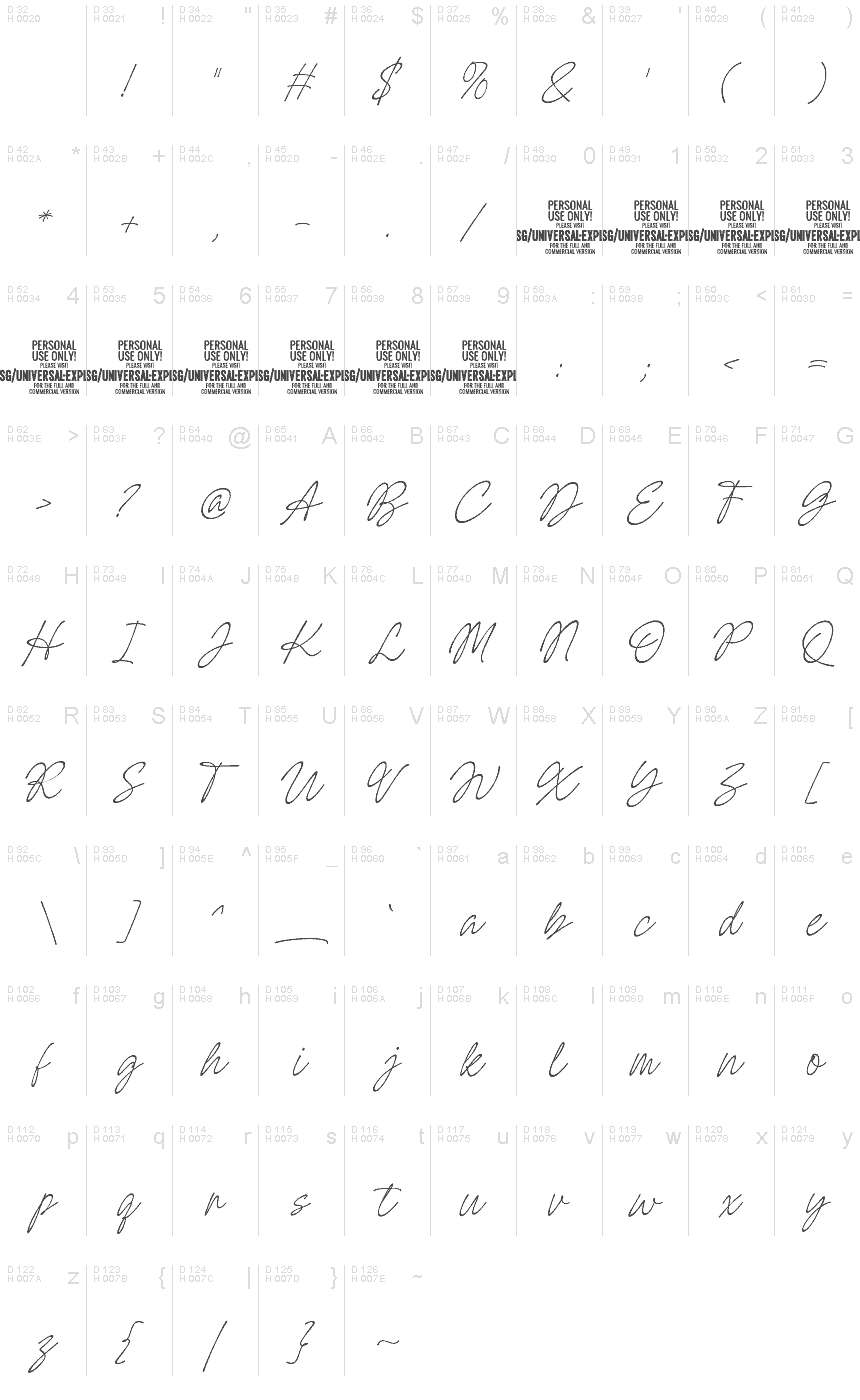
Universal Exploration PERSONAL Regular
Universal Exploration font is a flowing elegant script font with light weight designed by Måns Grebäck. Inspired by the fluid motion of ink on paper, the characters manifest smooth curves crafted with exceptional ligatures for a seamless flow of words and sentences.
Engage viewers on Instagram posts, presenting their captions in an attractive face while featuring marketing posters or fliers where smooth readability is of the utmost importance. Universal Exploration can also be used to design beautiful signages for stores, restaurants, hotels and more permanent usages.
Use an underscore _ anywhere in a word to create an underline.
Example: Signa_ture
You can use multiple underscores to produce different swashes.
Example: Love___lettering